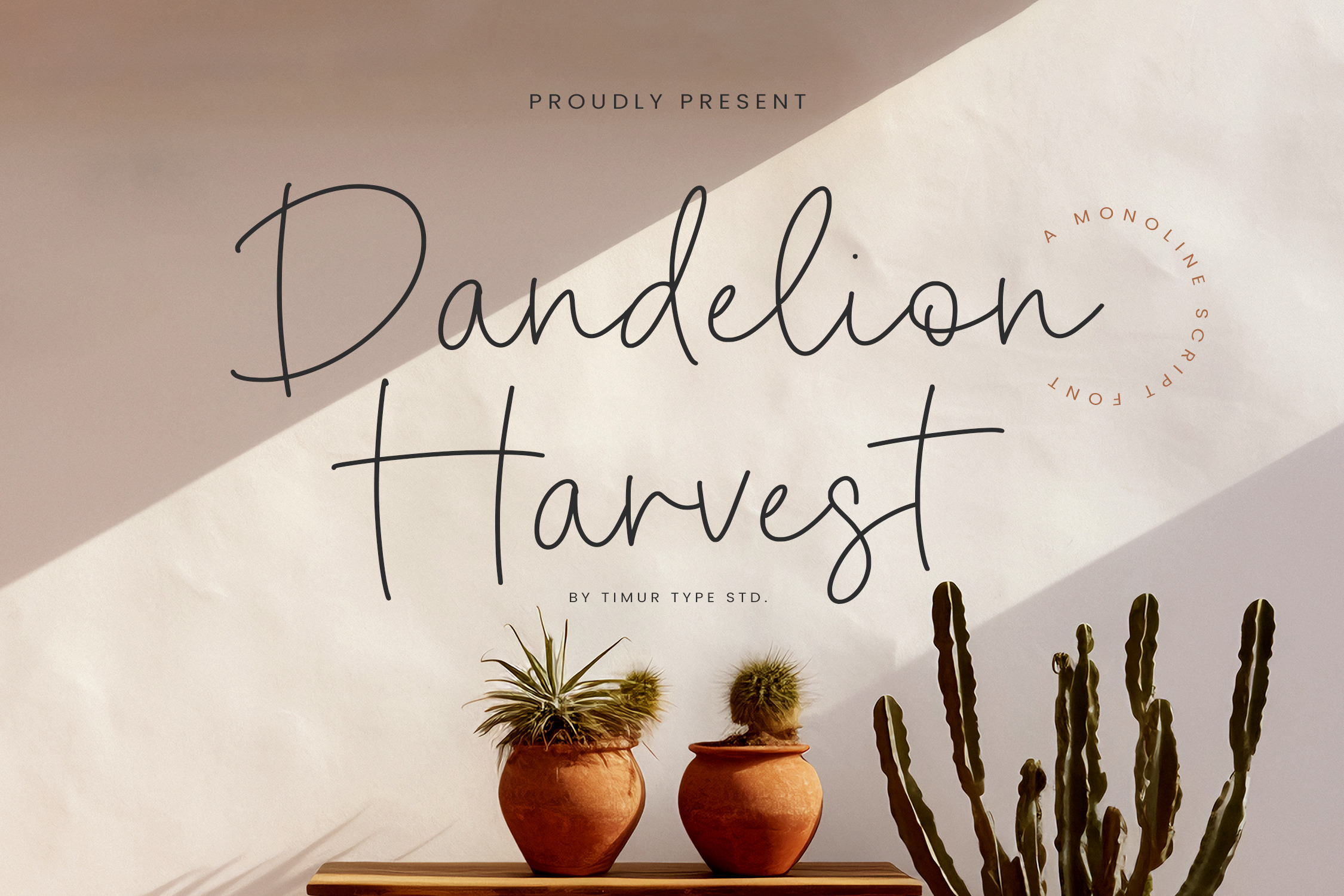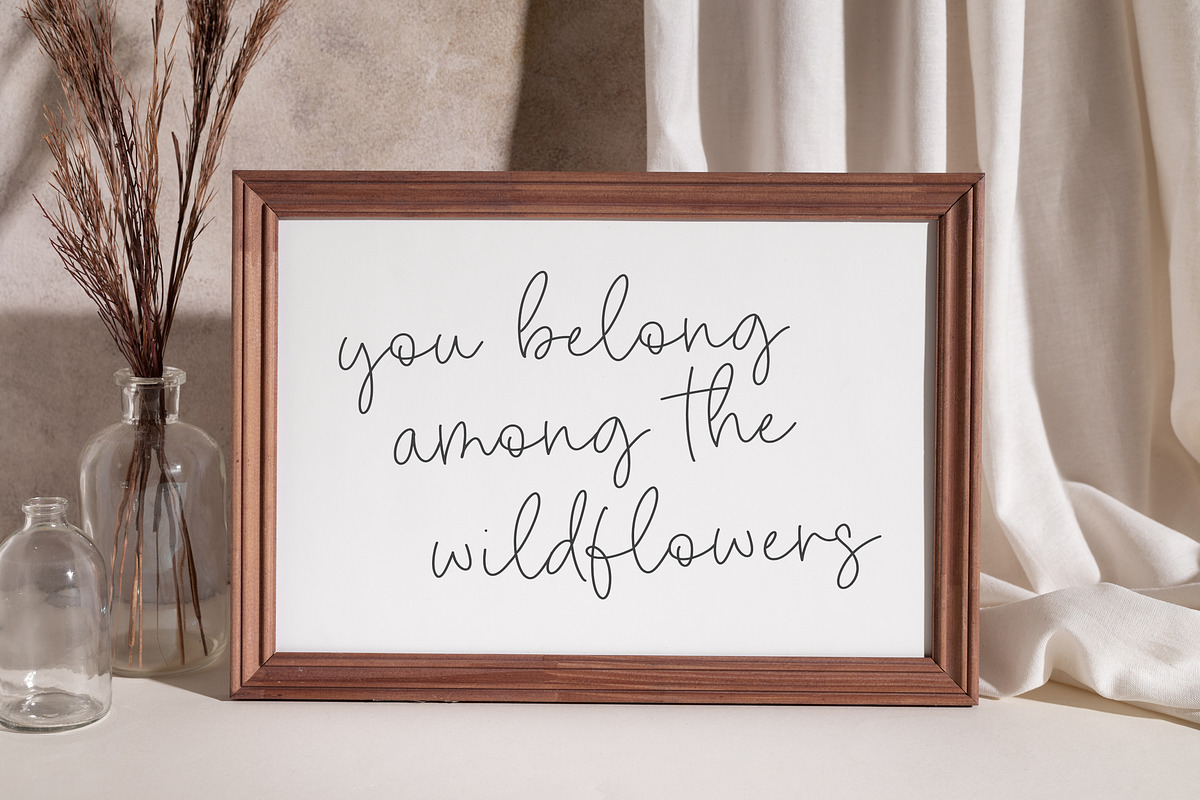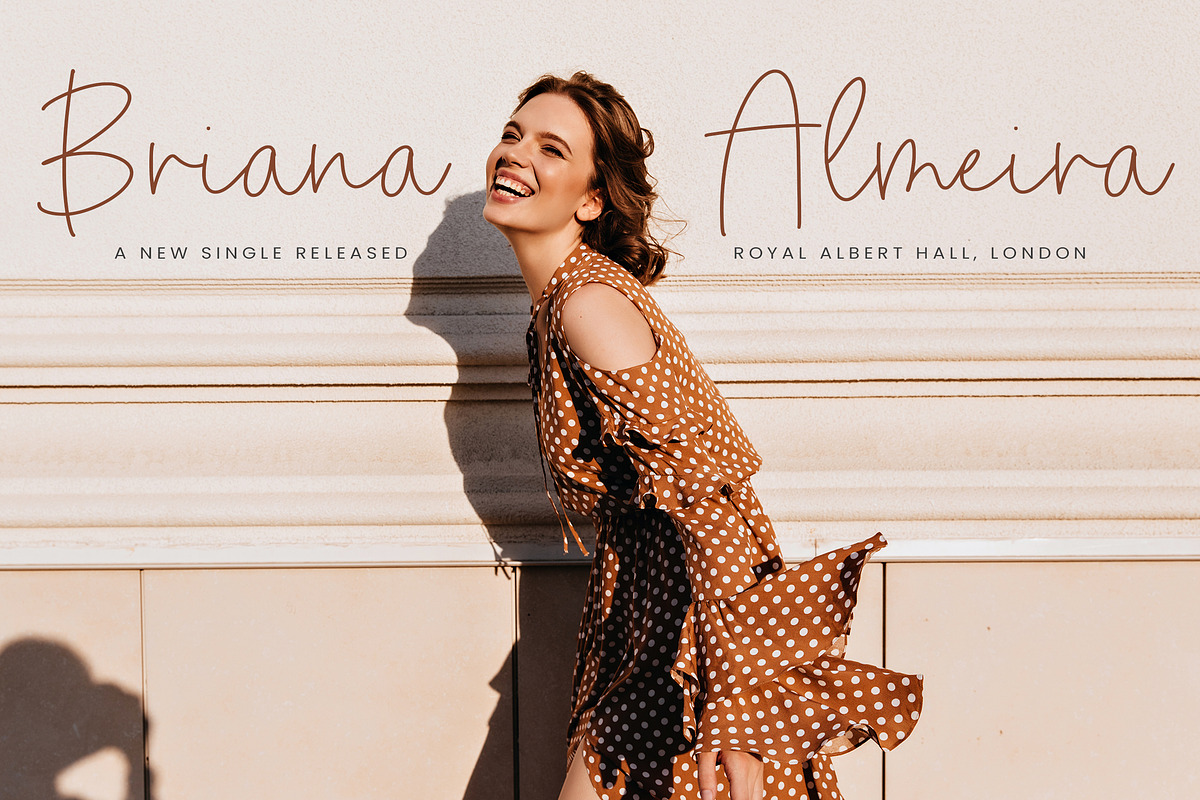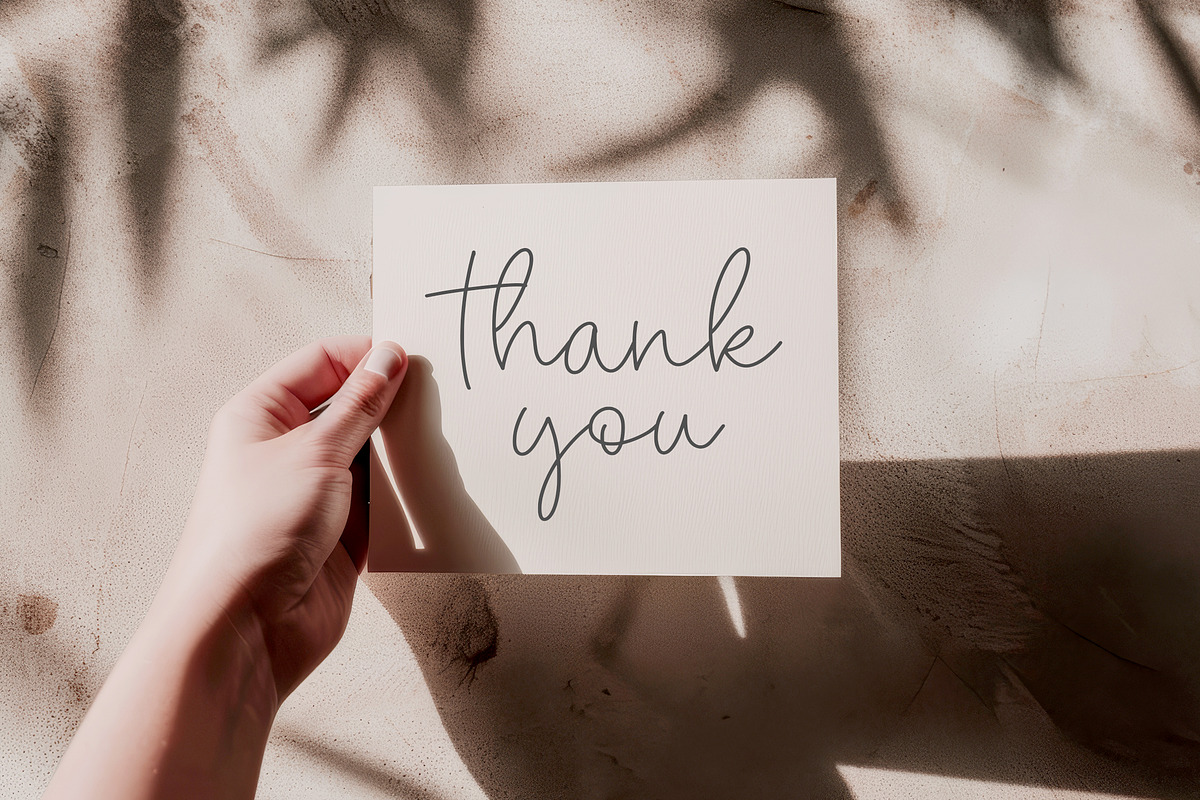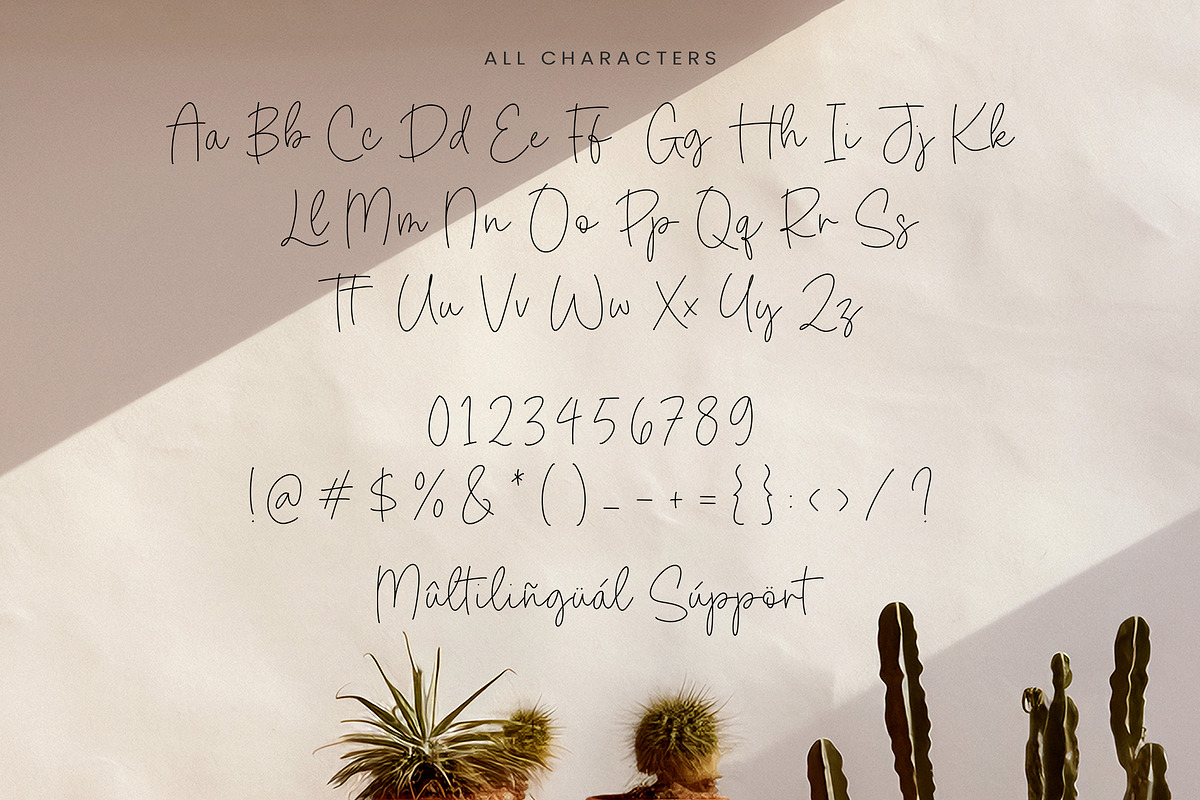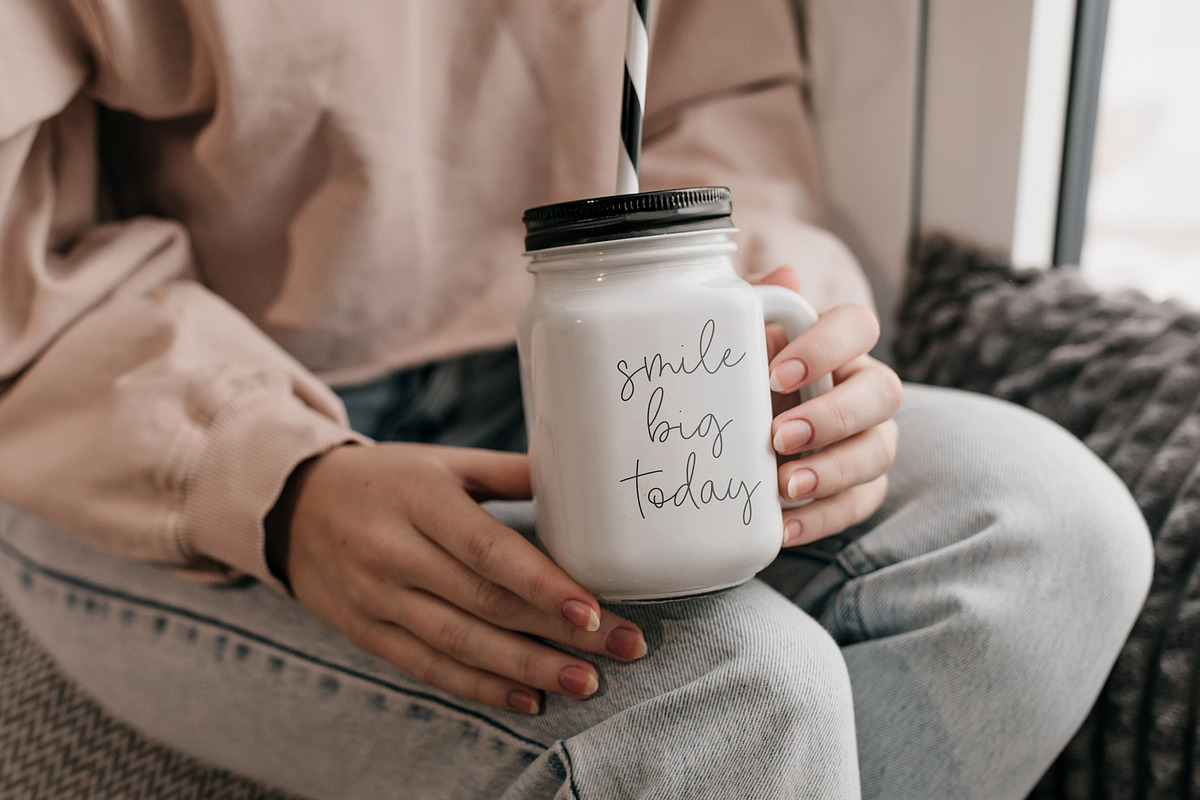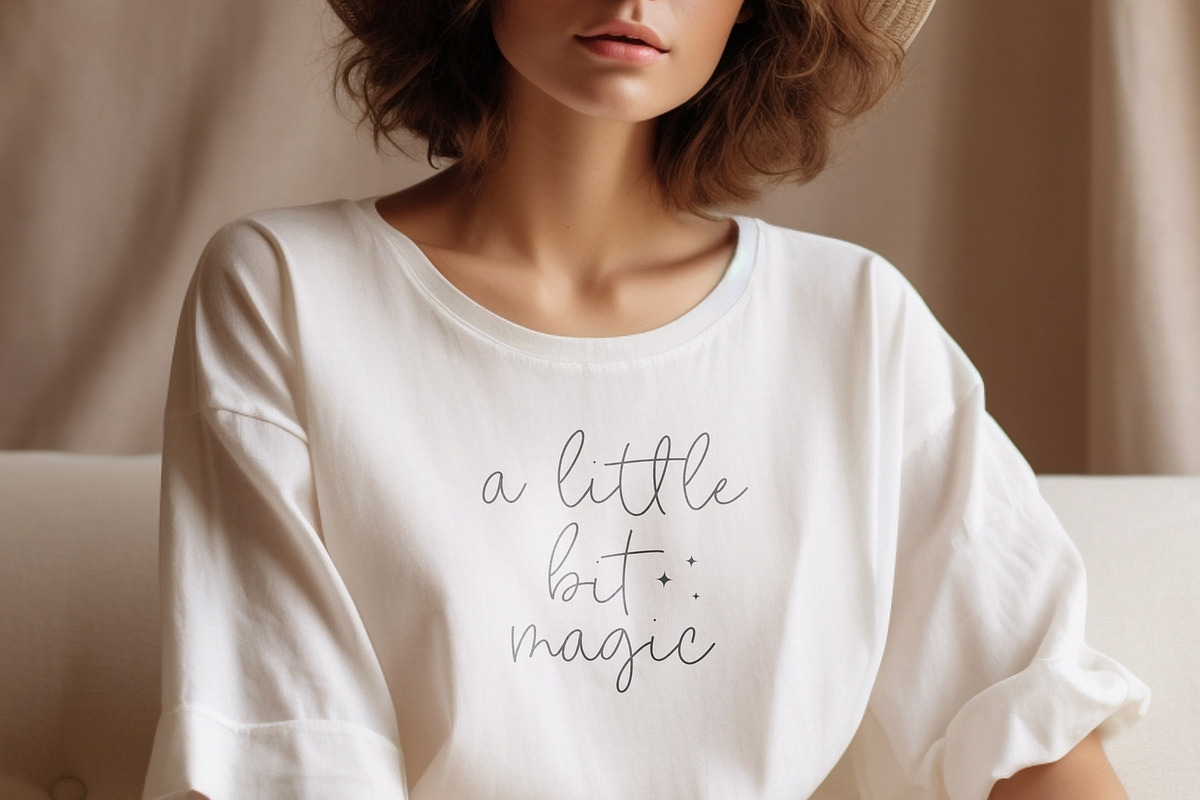
Dandelion Harvest Font
Introduced by Timurtype Studio!
Dandelion Harvest is a Monoline Script Font
This font a captivating monoline script font that exudes a modern and elegant charm. This font showcases a sleek and uniform stroke width, giving it a contemporary and minimalist look. The letterforms of Dandelion Harvest are crafted with precision and clarity, yet maintain a sense of fluidity and grace. The clean lines and balanced proportions of this font make it perfect for a variety of design projects, from logos and branding materials to social media graphics and website headers. With its timeless appeal and versatility, Dandelion Harvest adds a touch of sophistication to any design. Embrace the modern elegance of the Dandelion Harvest font and elevate your creative projects to new heights of style and professionalism.
Dandelion Harvest Font also supports multilingualism